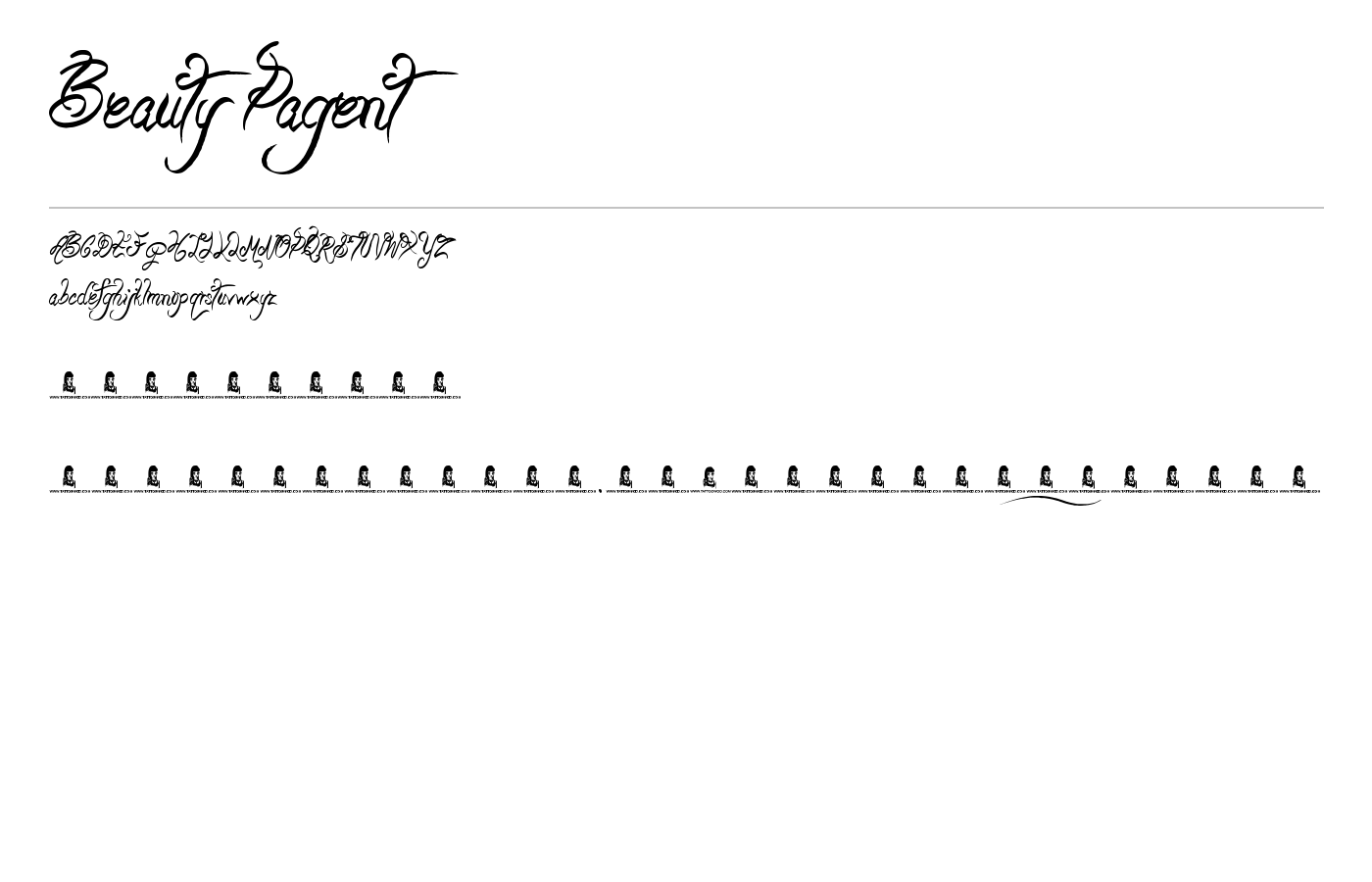
Beauty Pageant is an elegant, handwritten script font with delicate, flowing strokes and a graceful, artistic style. It features a high contrast between thin and slightly thicker lines, giving it a refined and sophisticated look, perfect for luxury branding, wedding invitations, and beauty-related designs that seek a personal, stylish touch. This font's charming, natural curves convey a sense of creativity and femininity, making it ideal for headlines and decorative uses rather than body text.
Beauty Pagent Font
About Beauty Pagent Font